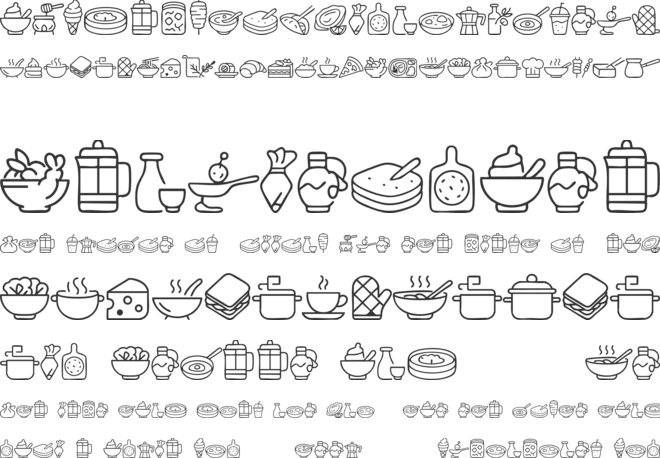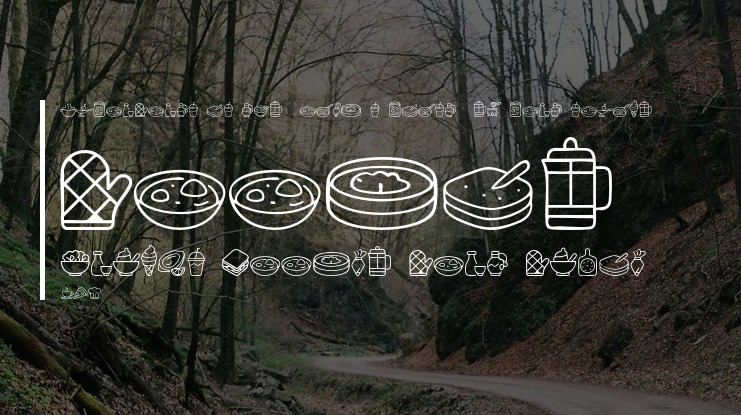
Foodie Snacks Doodle Font
Spice up your designs with this fun and tasty collection of 48 hand-drawn food doodles in a clean, vector-style font. From noodles and pizza to coffee cups and baking tools — every icon is crafted to add charm to your creative projects.